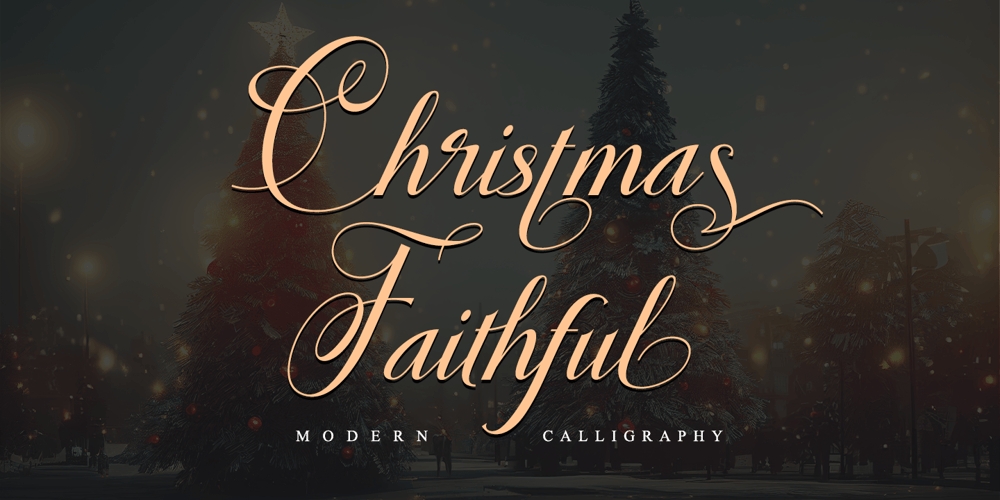
Christmas Faithful Font Family was designed by Thomas Aradea and published by Letterara. Christmas Faithful contains 2 styles and family package options. Christmas Faithful is an enchanting calligraphy font that emanates sophistication and elegance. Fall for its ravishing style and use it to create beautiful designs. This font is PUA encoded which means you can access all glyphs and swashes with ease!